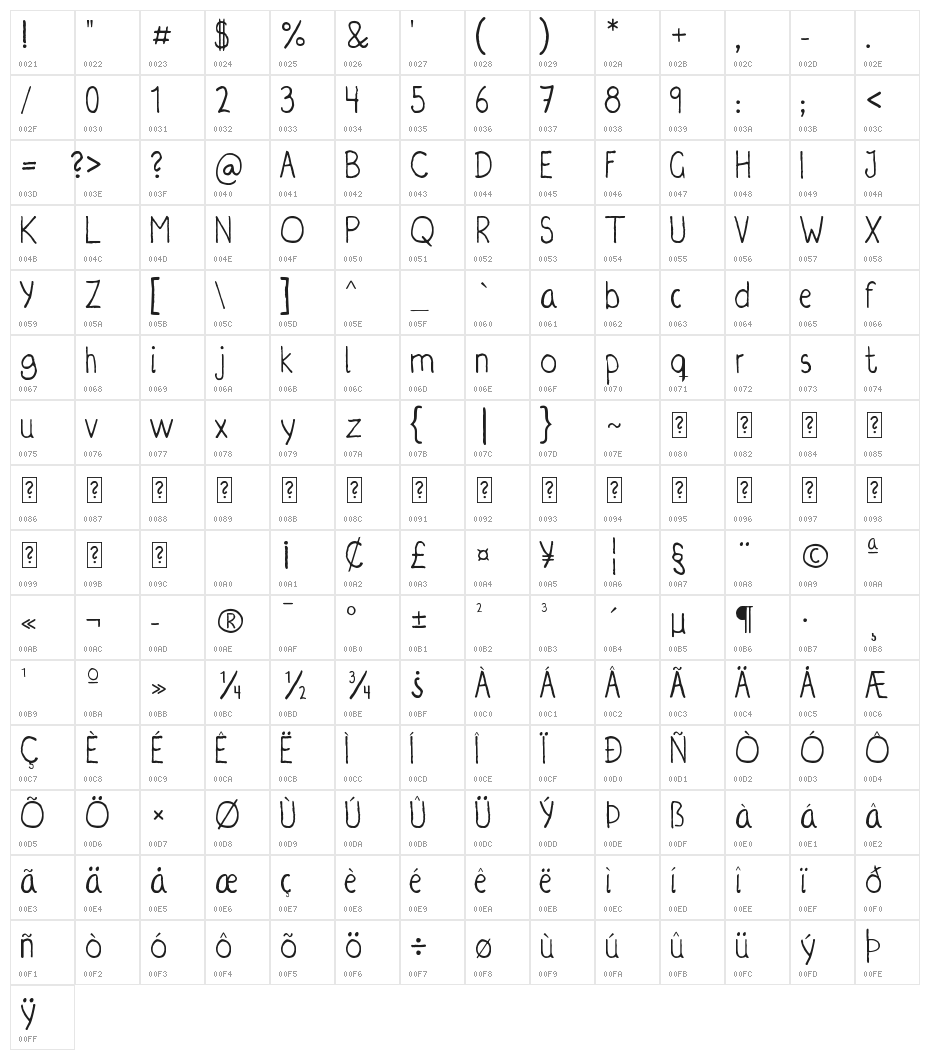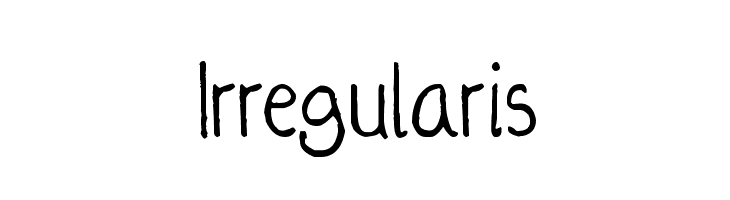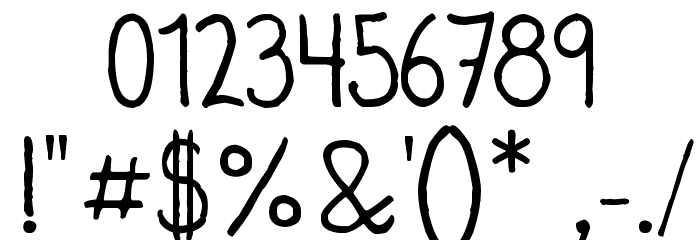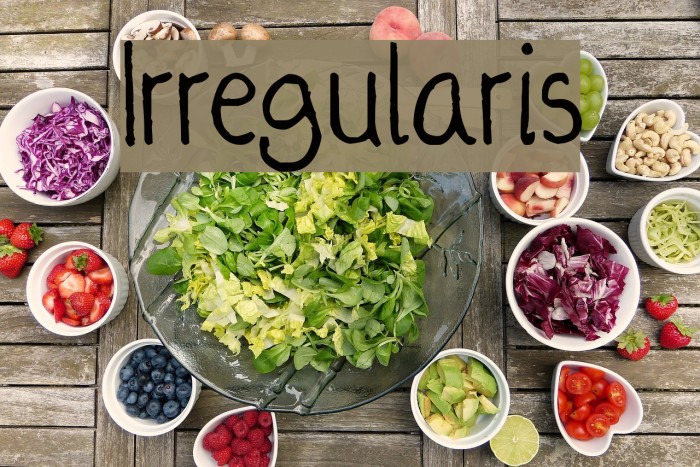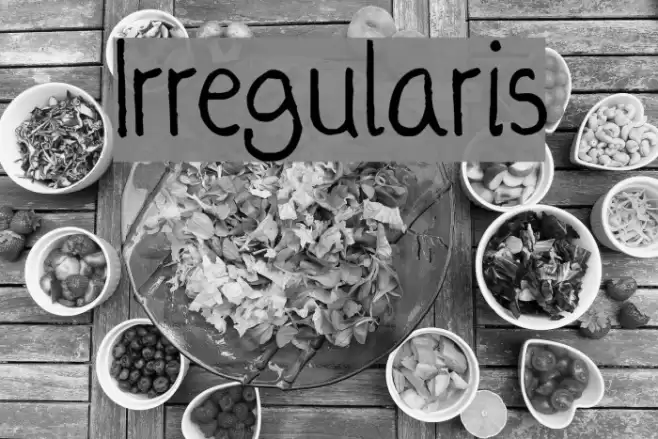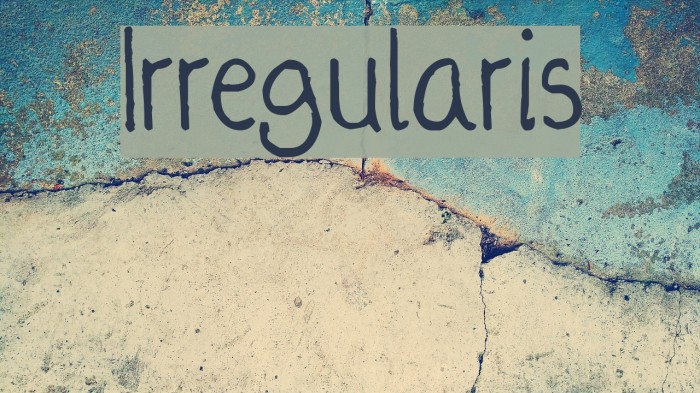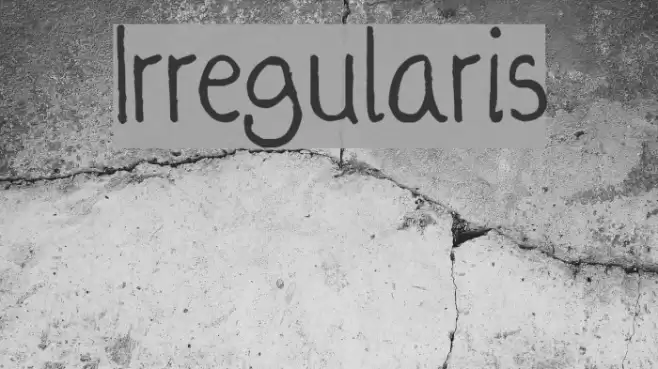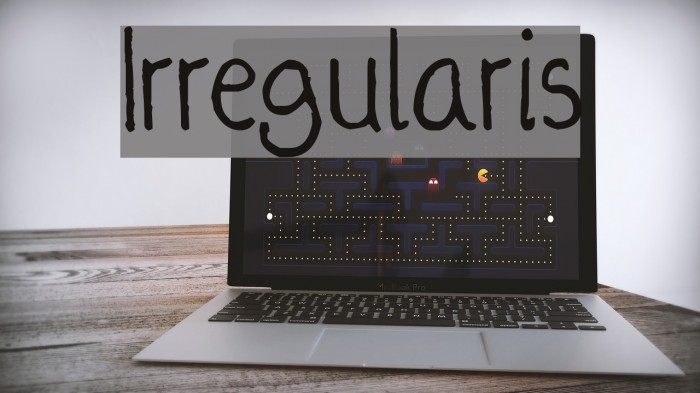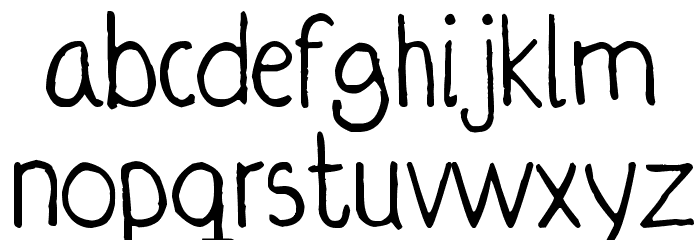
Irregularis Font
Irregularis Description
This font features an irregular, hand-drawn style with uneven strokes and a playful, casual appearance. The letters have a slightly wobbly and organic feel, giving them a unique and artistic character. The uppercase and lowercase letters maintain a consistent style, with rounded edges and varying stroke thicknesses that add to the font's charm. Numbers and special characters are designed with the same quirky and informal aesthetic, making them blend seamlessly with the alphabet. The overall look is reminiscent of handwritten notes or doodles, perfect for projects that require a personal touch.
| Overall Style | Casual, Artistic |
| Use Case | Headlines, Informal text, Creative projects |
| Proposed Projects | Ideal for children's books, creative posters, greeting cards, and informal branding projects. |